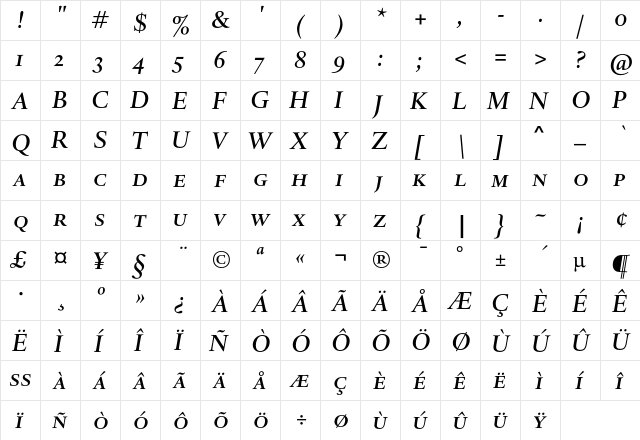
DTLHaarlemmerDCaps MedItalic
Design Context for DTLHaarlemmerDCaps Typeface
DTLHaarlemmerDCaps is a composed and adaptable typeface that performs quietly and consistently across a wide range of design contexts. The dynamic lean of this cut emphasises speed and emphasis in any layout.
Pro Tip: Use DTLHaarlemmerDCaps for emphasis, pull quotes, and subheadings where its slanted energy can add rhythm to the layout.